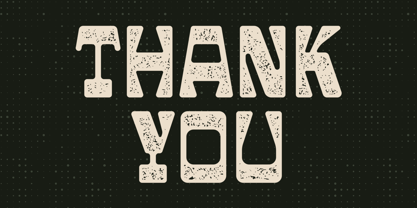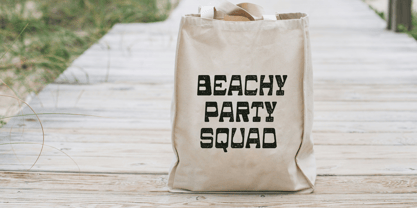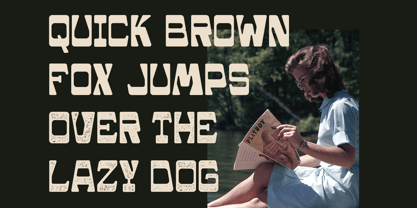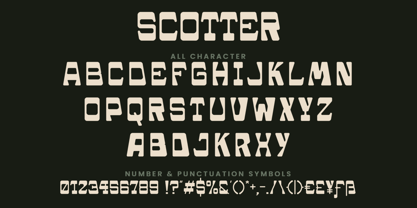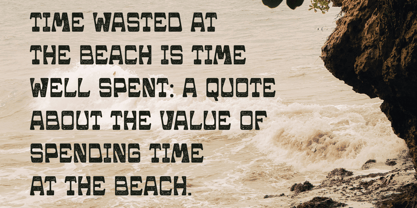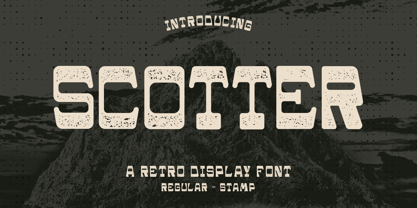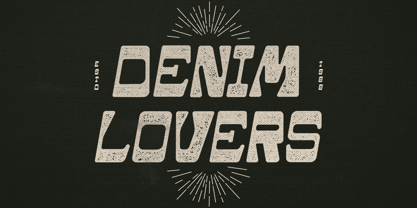
Scotter
by AQR Studio
The Scotter Font Family was designed by Muhammad Hidayat and published by AQR Studio. Scotter contains 2 styles and family package options. More about this family
Scotter – Retro Font is a bold typographic experiment inspired by classic retro design styles. Its strong, striking letterforms evoke a sense of vintage charm while staying versatile and modern. Available in two distinct styles—Regular and Stamp—Scotter includes a complete basic alphabet, enriched with ligatures and alternates to offer maximum creative flexibility.
Whether you're designing packaging, printed materials, or imaginative visuals that defy convention, Scotter – Retro Font adds personality and punch to any project. It’s more than just a font—it’s a nostalgic statement reimagined for today’s visual storytelling.
Designers: Muhammad Hidayat
Foundry: AQR Studio